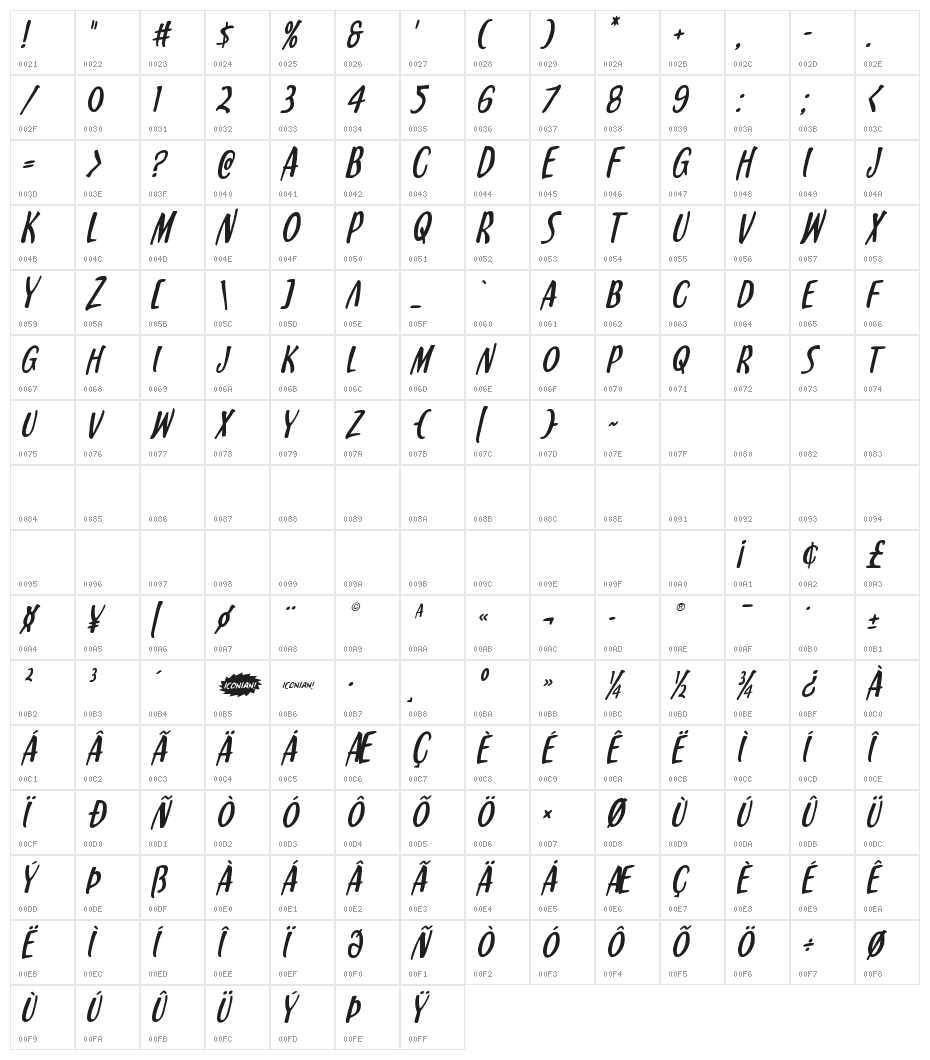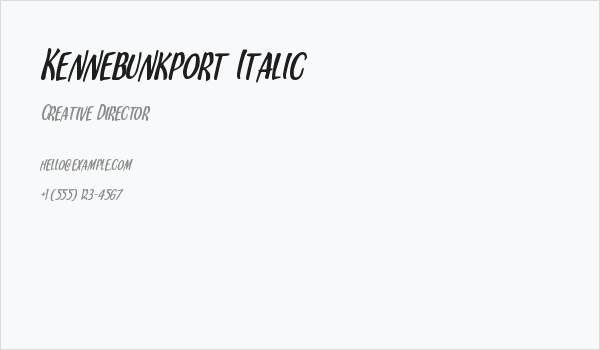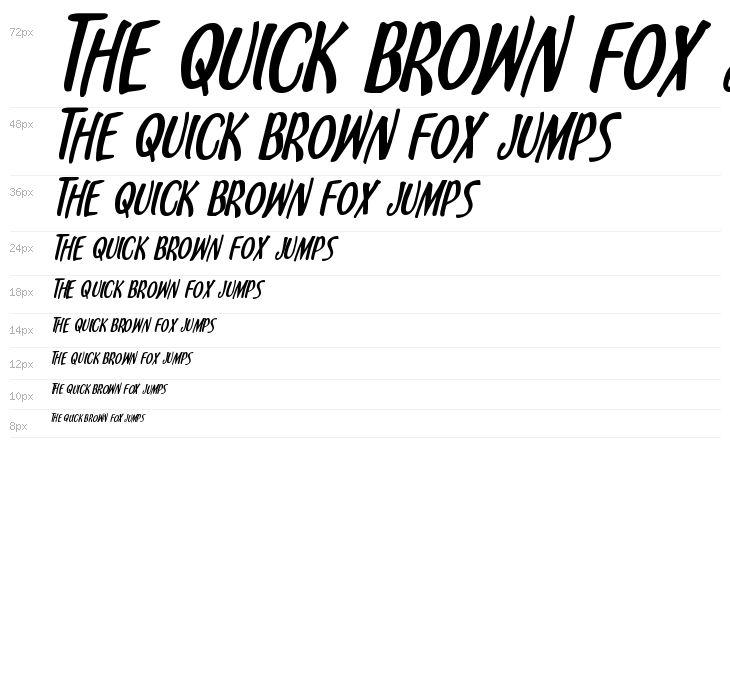
Kennebunkport Italic Font
Kennebunkport Italic Description
This font features a dynamic and expressive style with a handwritten appearance. The letters are slanted, giving it an italicized look that enhances its fluidity and movement. The strokes are bold and slightly irregular, adding a personal touch and a sense of spontaneity. The uppercase and lowercase letters maintain a consistent style, with a playful yet sophisticated vibe. Numbers and special characters are also included, matching the overall aesthetic. This font is ideal for projects that require a lively and engaging typeface.
| Proposed Projects | Ideal for branding, posters, invitations, and creative projects that require a personal touch. |